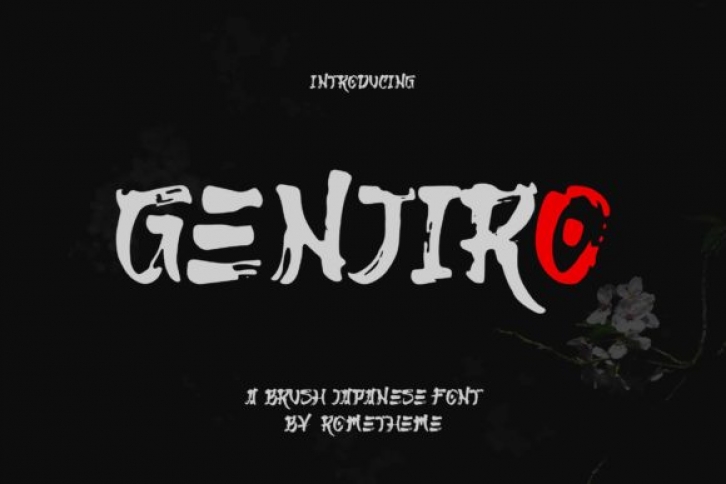
Genjiro is a spectacular japanese-style display font. Simple and easy to use, this font will be very beautiful if you mix it with your various craft designs.